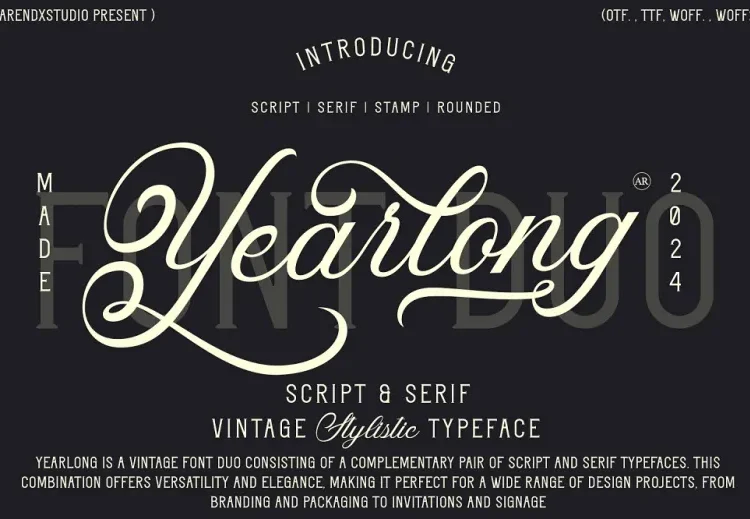
Yearlong Font
Yearlong is a unique duo font set that combines script and serif typefaces, offering a perfect blend of styles for various design projects. This pairing allows for a versatile approach to creative work, making it ideal for logos, product packaging, cards, signs, and more. The vintage-inspired feel of Yearlong adds a nostalgic touch to your designs, providing an old-school yet timeless look that remains relevant in any context.
Whether you’re aiming for a classic or contemporary vibe, Yearlong’s combination of script and serif fonts gives you the flexibility to achieve the desired effect. The harmonious relationship between these two typefaces ensures that your design will stand out, whether used in branding, invitations, or any other creative endeavor.